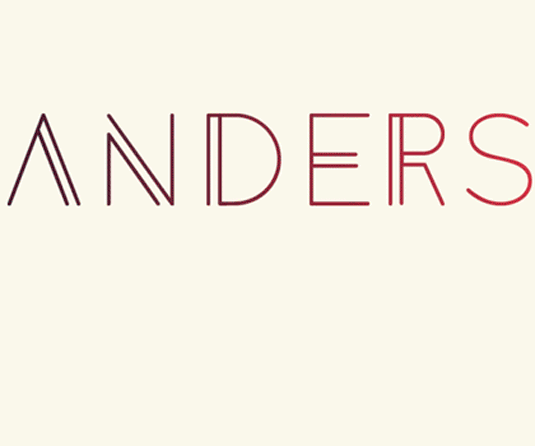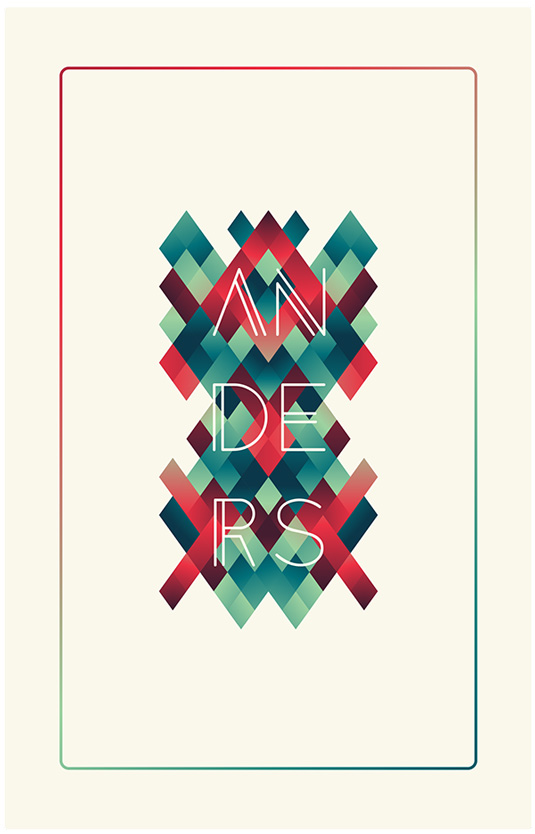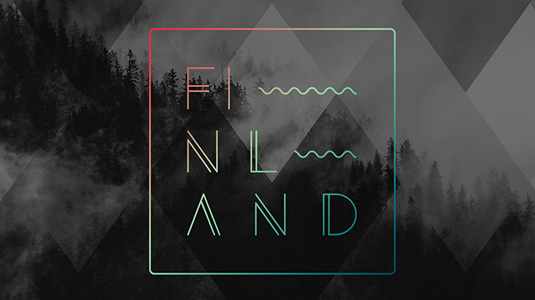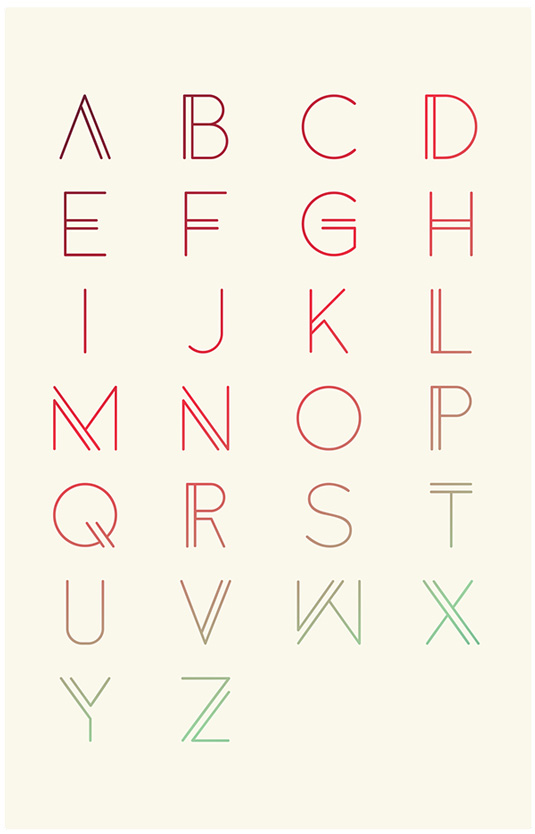
Font of the day: Anders
Every day we showcase the best fonts on the web. Today it's Anders by Tom Anders Watkins, which is totally free to download.
Anders by Tom Anders Watkins
Geometric design Anders was an experimental project by creative advertising student Tom Anders Watkins. "Using influences from modern font design, I wanted something very minimal and a little unique, here's the result," Watkins comments on Behance.